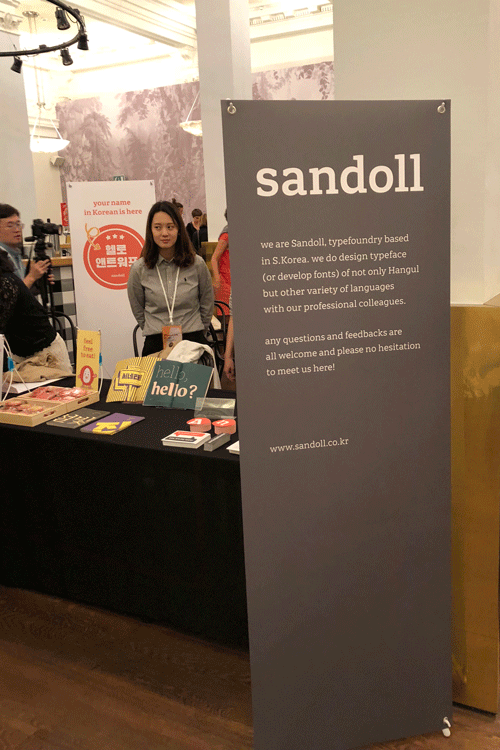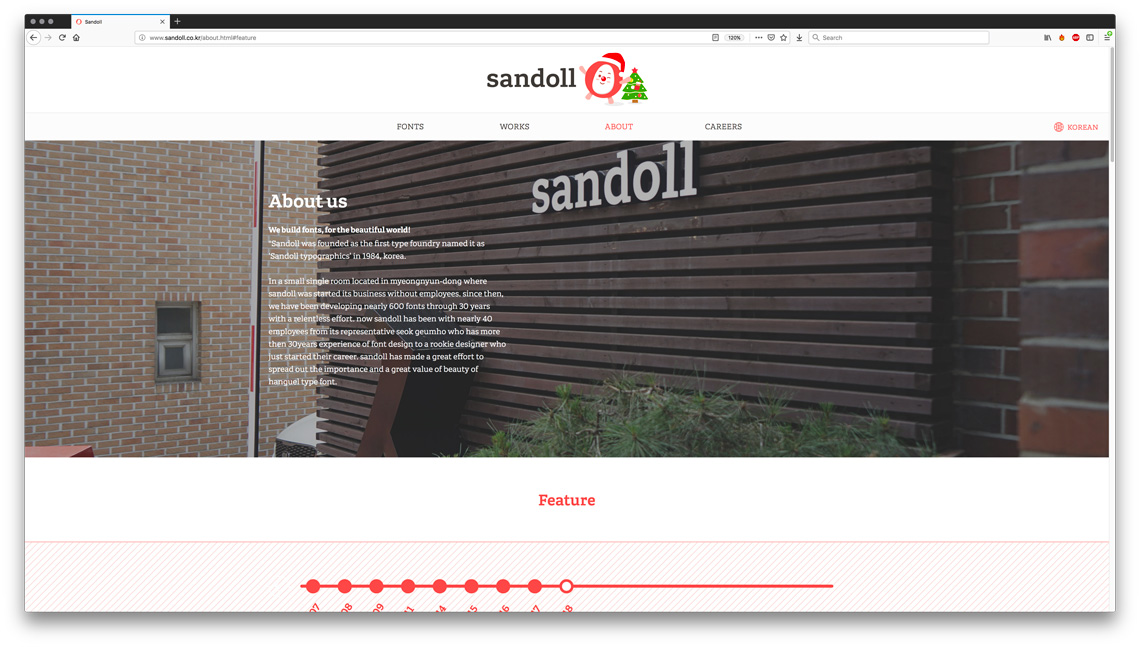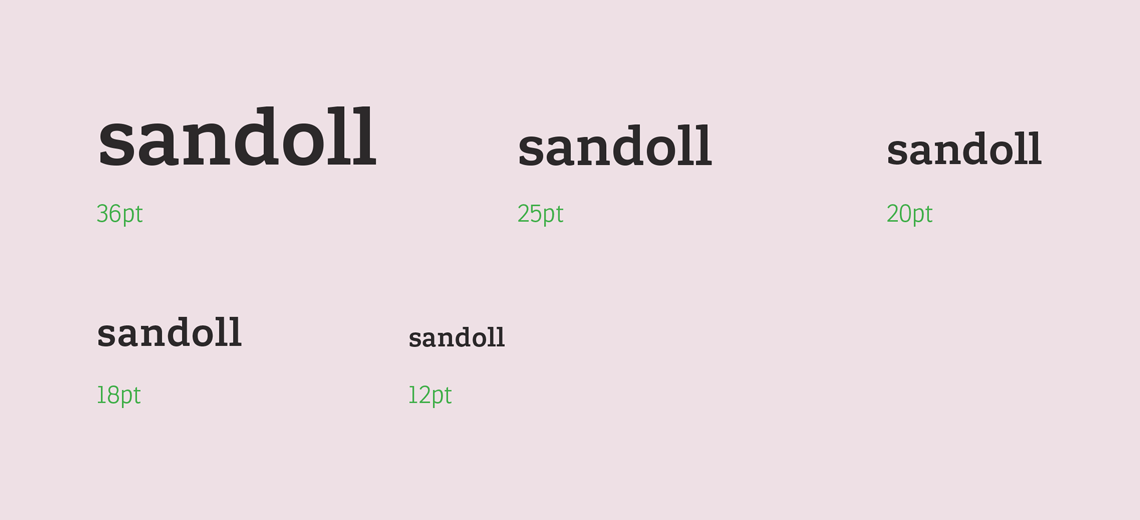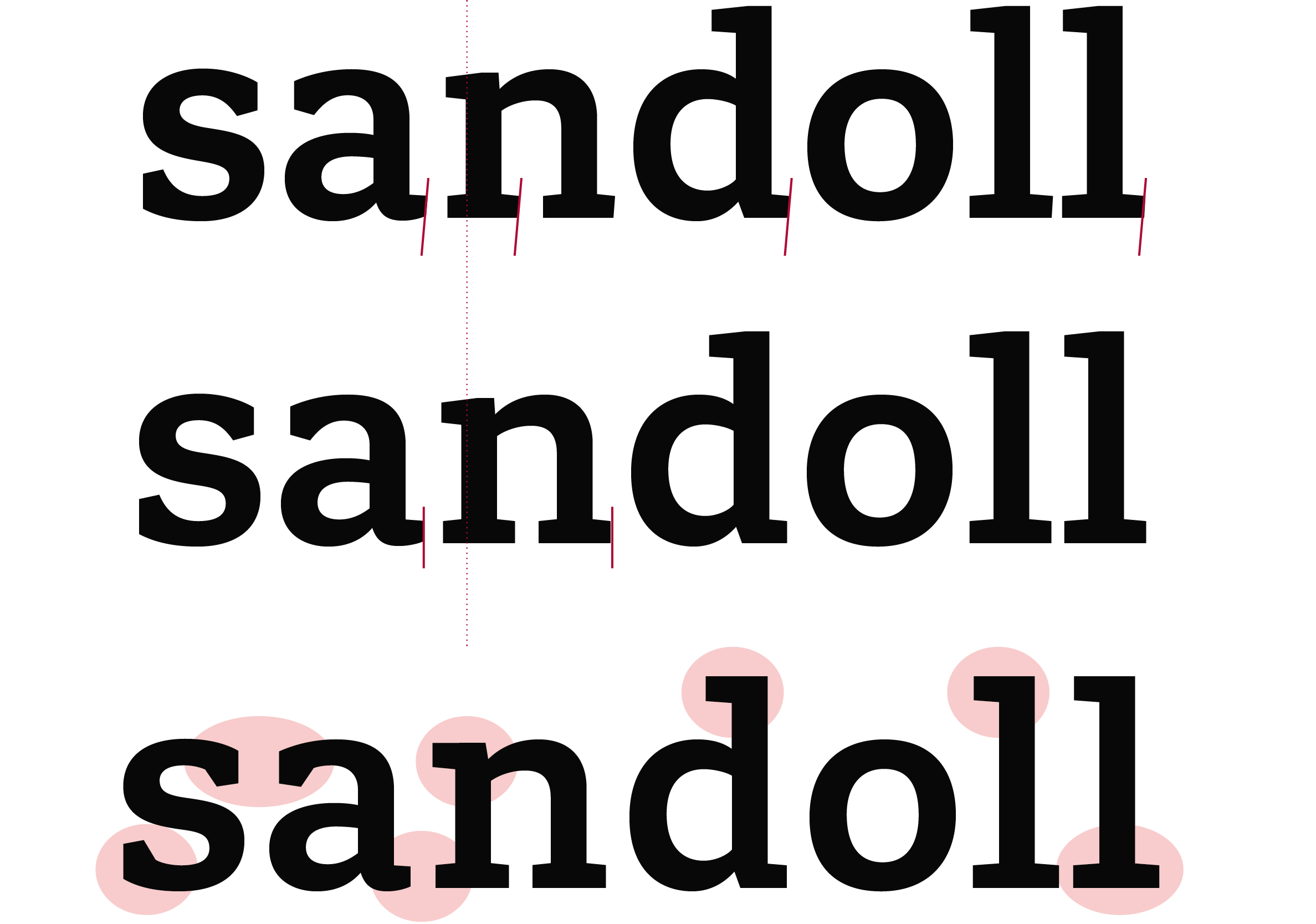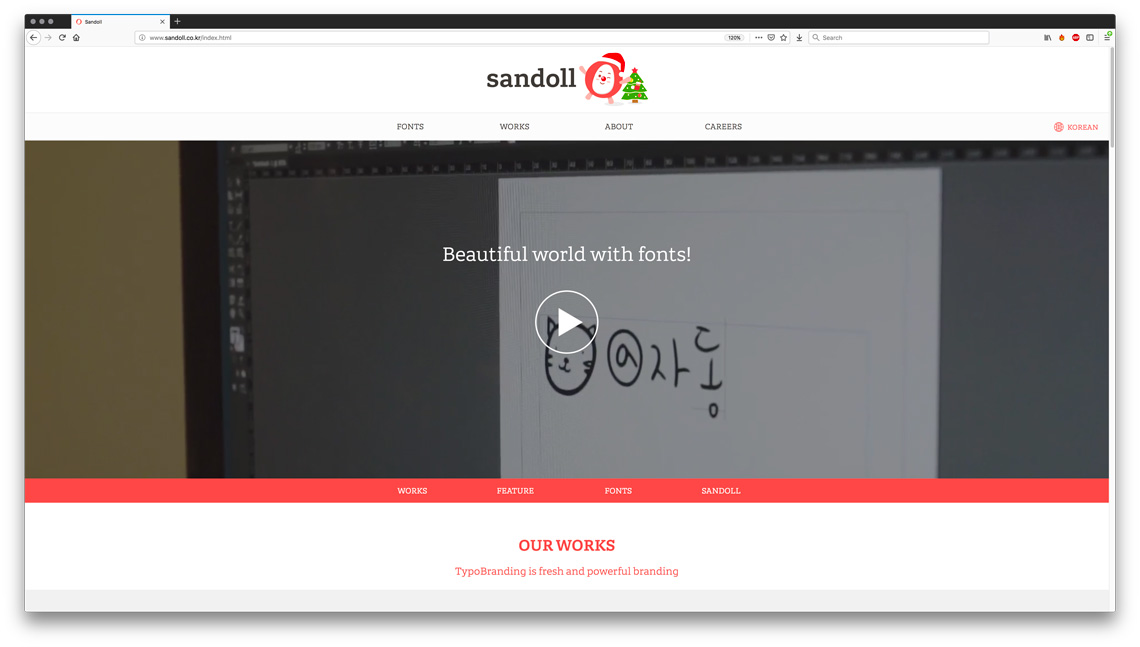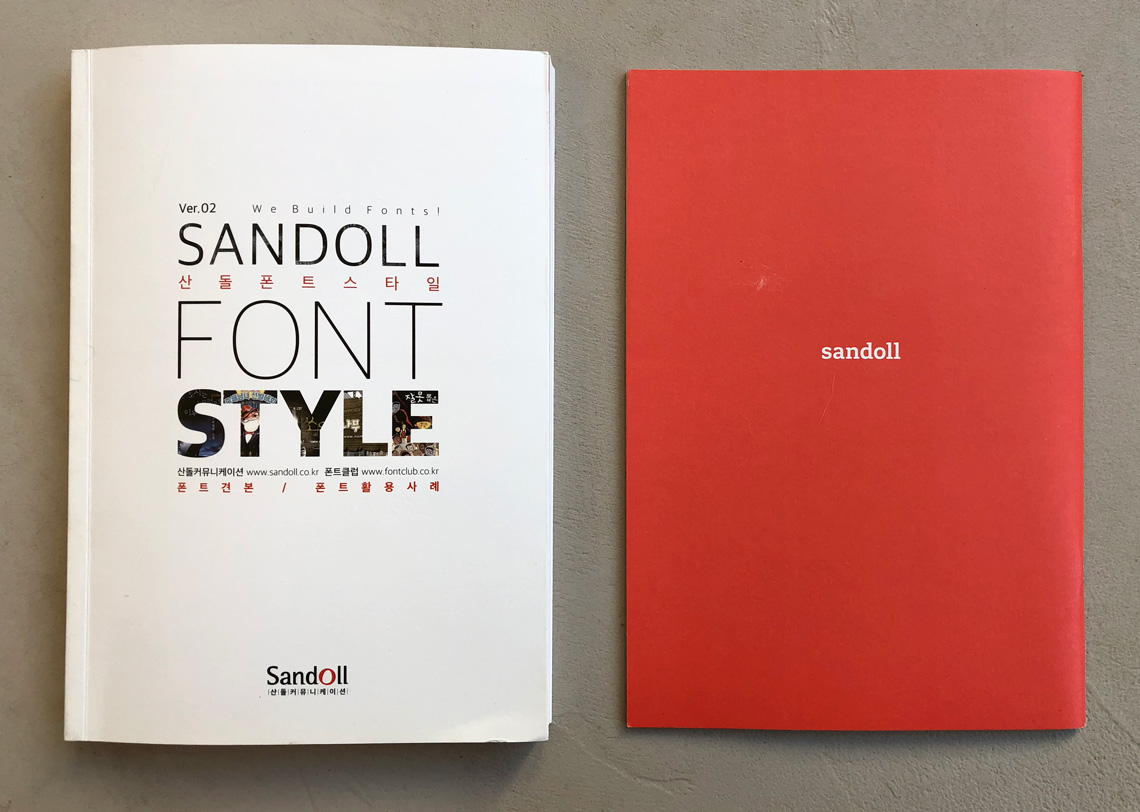
Sandoll Logotype
Sandoll, the oldest and most renowned Korean type foundry, commissioned TypeTogether to create a custom typeface as part of their rebrand and, at the same time, adapt it to create their new Sandoll logotype.
Previous logotype (left). New logo and branding (right).
From the beginning of the custom font project it was clear that the Semibold weight would also be used to set the new Sandoll logo. However, due to a wide range of reasons, installing a font and typing the brand name does not make a logo. The main problem is in an alphabet’s nature: when designing an alphabet, we make letters in such a way that they can fit before and after any other letter. This is a condition inherent to the very definition of typography. If we knew the final word that would be written, we would certainly make letters differently.
And this is exactly what TypeTogether does with logos: We interpret the designer’s ultimate intention by creating and modifying individual letterforms to create a more harmonious, cohesive, and appealing shape.
In Sandoll’s case, the changes were not overly dramatic, but consisted mainly of aligning serifs, tweaking the spacing, and fine-tuning the ‘sa’ combination to make sure the terminals align nicely. The more drastic modifications happened in the small and web version of the logo. Here all serifs were straightened and made more slabby, spacing was opened up, and sharp corners were added to the terminals on ‘s’ and ‘a’ for better definition.
Differences in design between the font (top), the large version (middle), and small version (bottom).
Small version of the logotype is to be used for anything below 18pt.
The new branding system has been rolled out and the new logotype and custom typeface are featured everywhere, from the updated website to merchandising products and specimens, all the way to 3D signage for the Sandoll Headquarters in Seoul, Korea.